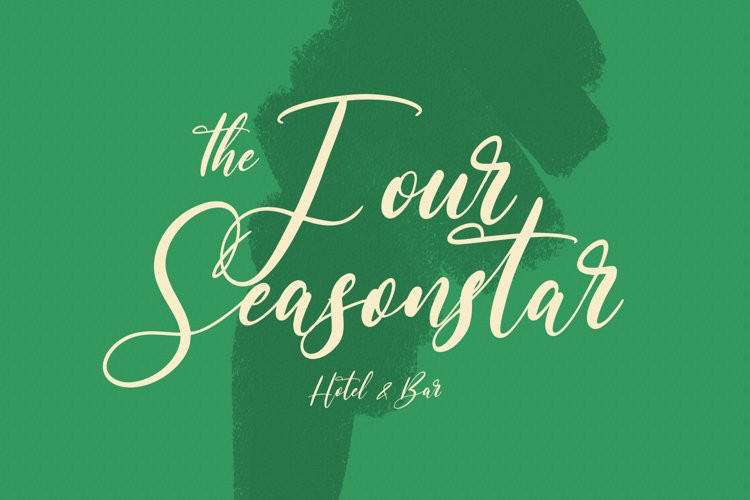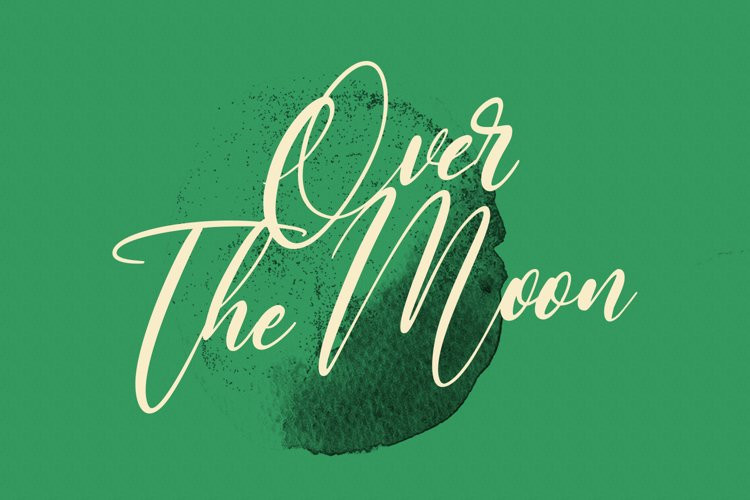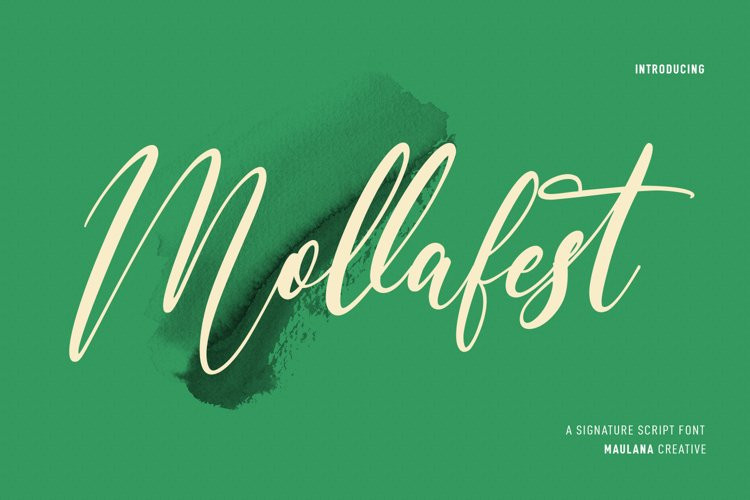
Mollafest Font
Mollafest FontMollafest is a modern script font. With high contrast stroke, fun character with a bit of ligatures. To give you an extra creative work. Mollafest font support multilingual more than 100+ language. This font is good for logo design, Social media, Movie Titles, Books Titles, a short text even a long text letter and good for your secondary text font with sans or serif. Make a stunning work with Mollafest font.